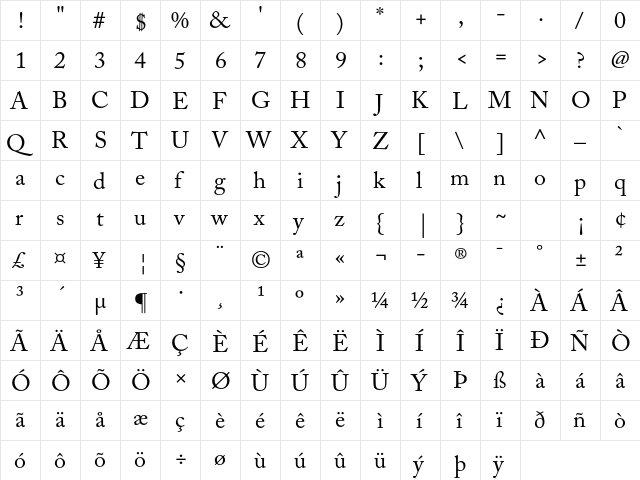
Adobe Caslon Pro Regular
| Designer | Carol Twombly |
Design Context for Adobe Caslon Pro Typeface
Adobe Caslon Pro is a composed and adaptable typeface that performs quietly and consistently across a wide range of design contexts.